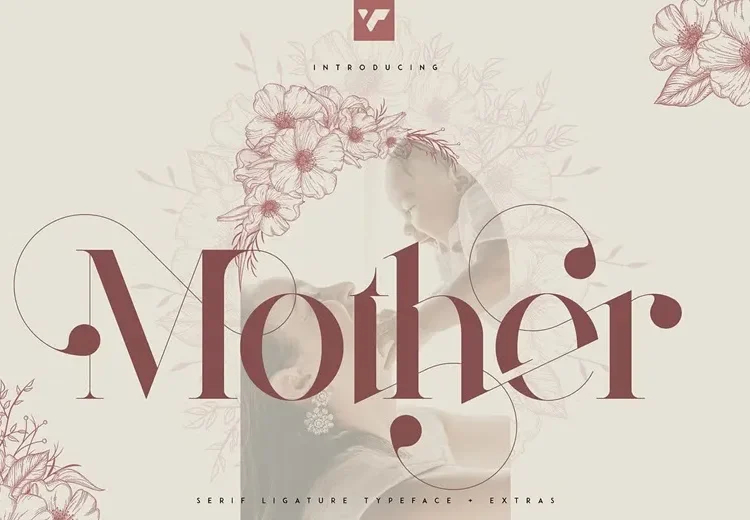
Mother Font
Mother is a typeface created in honor of all the mothers and children who don’t make it out alive, embodying both beauty and delicacy.
This font family includes 5 distinct typefaces, offering ligature characters, alternates, and multilingual options, as well as decorative frames, bouquets, and floral elements. With its versatile design, it is equally effective in large and small sizes, bringing an elegant and meaningful touch to any project.
Mother Font is perfect for logo designs, homeware illustrations, product labeling, magazine titles, and more. It adds a graceful and refined textual element to backgrounds, enhancing both digital and print designs with its sophistication.